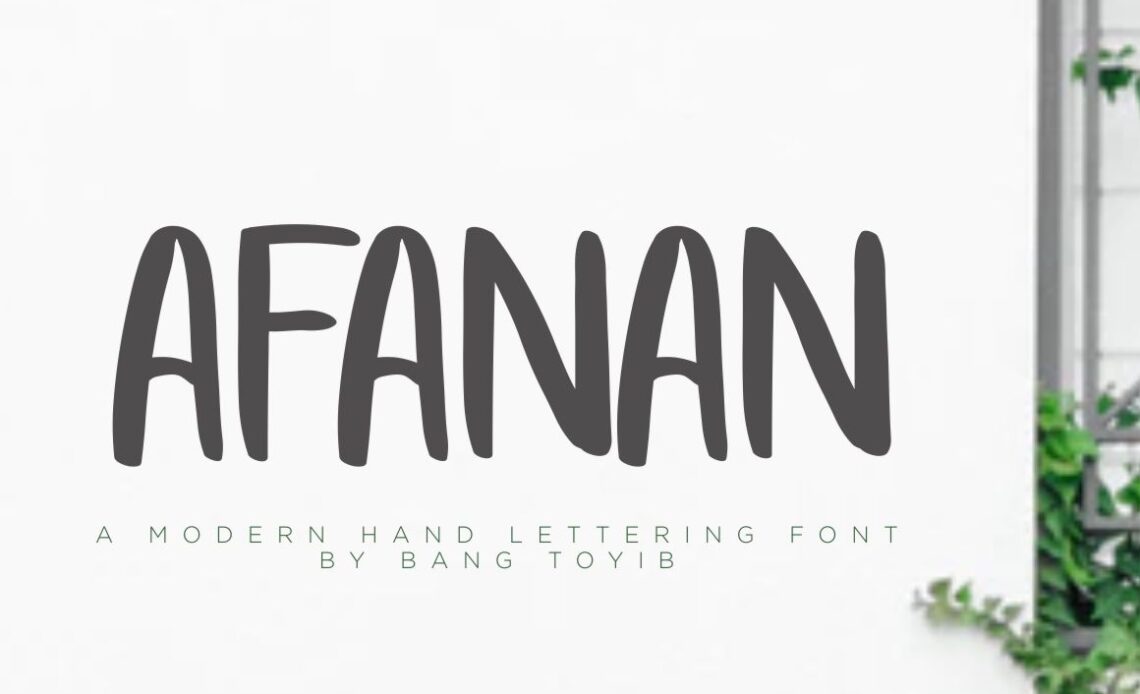
Step into the realm of artistic expression with Afanan Font, a captivating sans serif handmade brush font, meticulously crafted by the artisans at Eldertype Studio. This exquisite typeface exudes a relaxed vibe, effortlessly adding a dash of playful charm to your creative endeavors.
Immerse yourself in the world of Afanan, where letters dance gracefully across the page, evoking a sense of spontaneous artistry with every stroke. Its free-flowing curves and playful strokes create a captivating visual rhythm, adding a touch of playfulness and whimsy to your designs.
Afanan's versatility knows no bounds, seamlessly adapting to a myriad of design projects. Whether you're crafting captivating logos, designing eye-catching posters, or adding a personal touch to your social media posts, Afanan rises to the occasion with effortless grace.
Experience the transformative power of Afanan as it breathes life into your words, captivating your audience with its unique charm. Let your imagination soar as you explore the endless possibilities that await, knowing that Afanan will faithfully accompany you on your creative journey.
Unleash your inner artist and embark on a typographic adventure with Afanan Font. Its relaxed vibe and playful spirit will ignite your creativity, inspiring you to create designs that resonate with authenticity and charm.